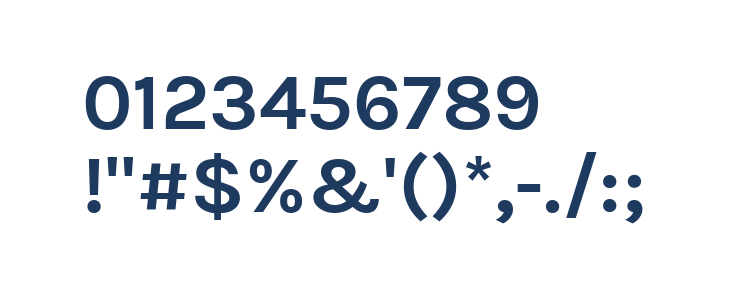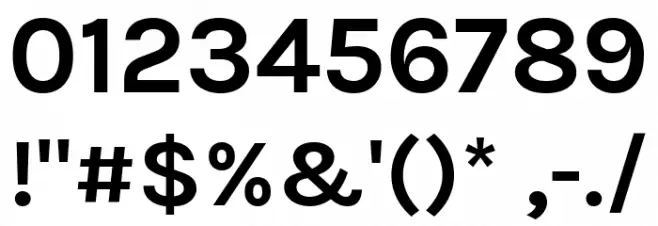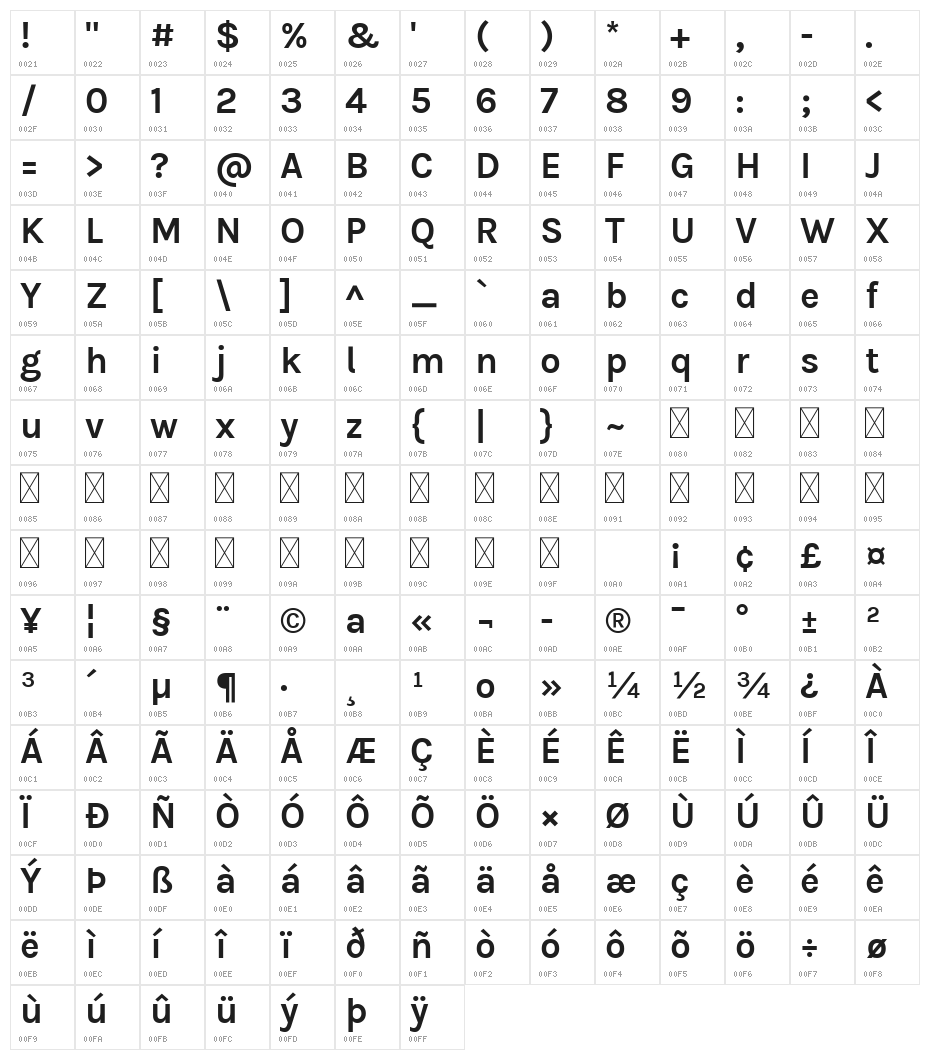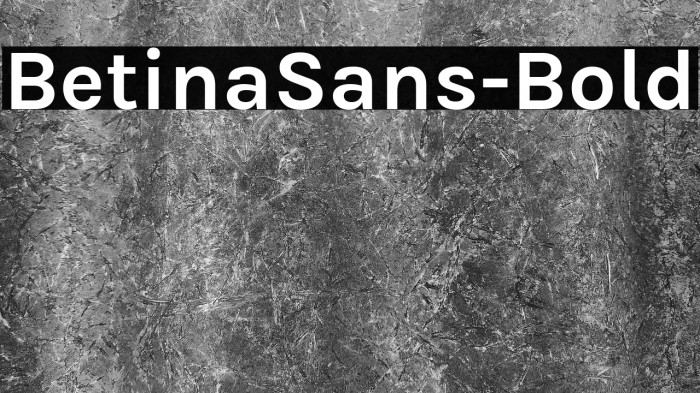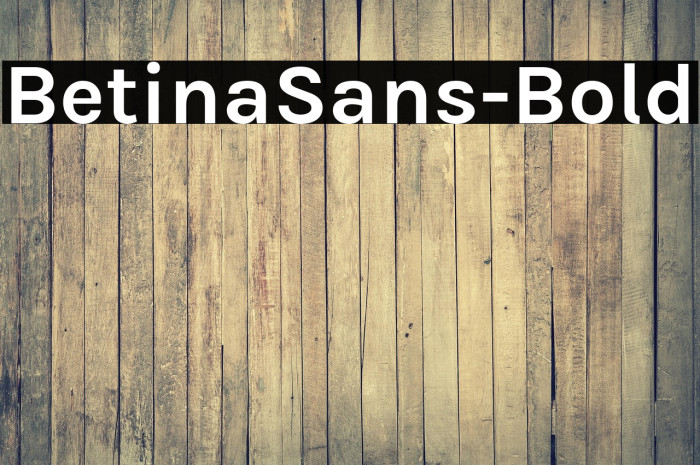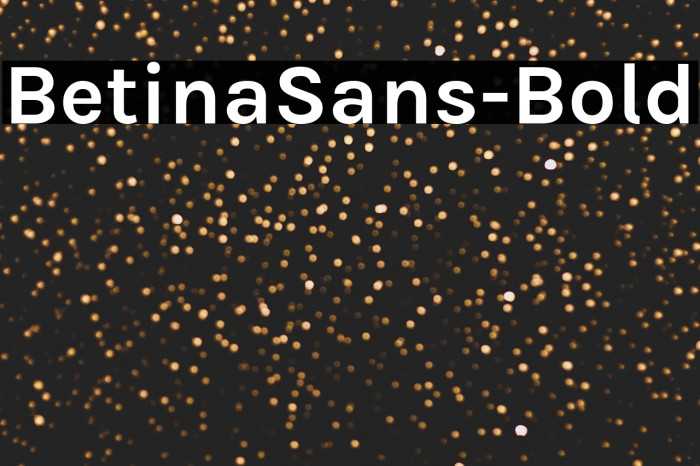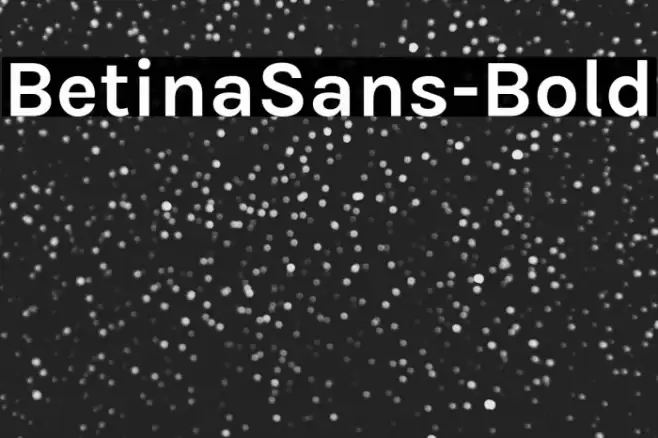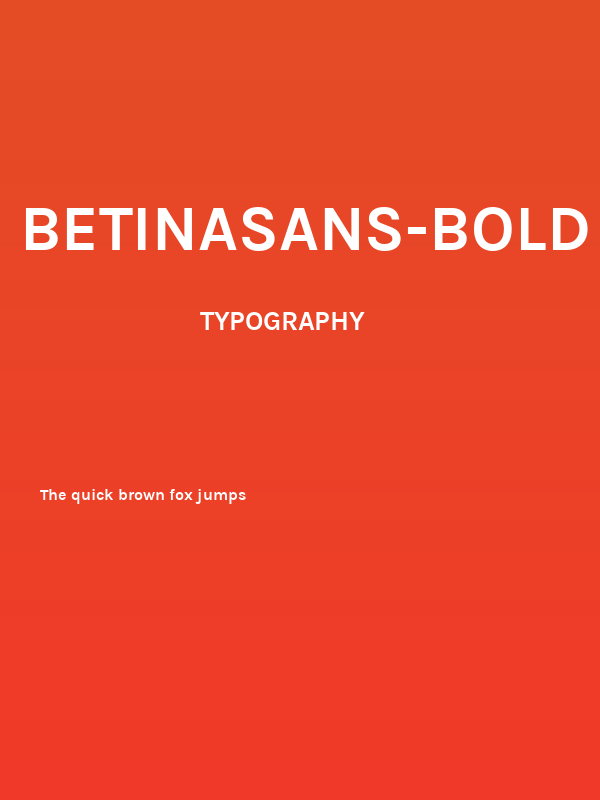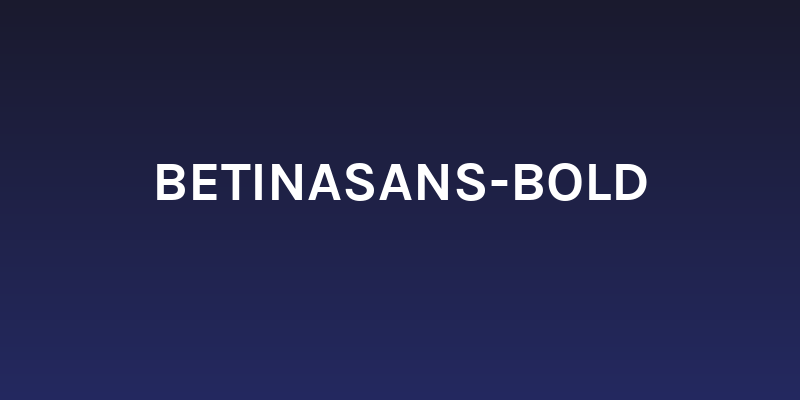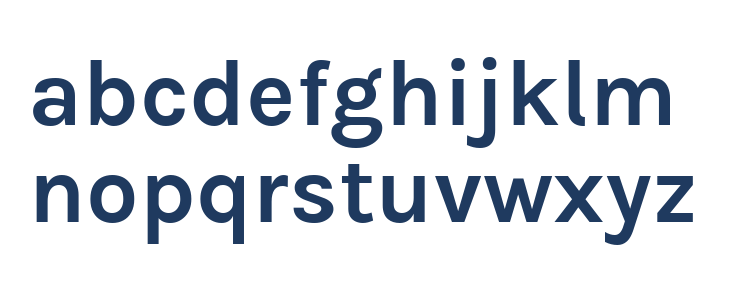
BetinaSans-Bold Font
BetinaSans-Bold Description
This font exhibits a clean and modern sans-serif style with bold weight, making it highly legible and impactful. The characters are well-proportioned, featuring smooth curves and straight lines that create a harmonious appearance. The uppercase letters are uniform in height, while the lowercase letters maintain a consistent baseline, enhancing readability. The numerals are clear and distinct, ensuring easy recognition. Special characters are designed with simplicity and clarity, aligning with the overall aesthetic. This font's boldness and clarity make it suitable for a variety of design applications.
Use CaseHeadlines, Logos, Branding
Proposed ProjectsIdeal for branding, headlines, posters, and digital content where clarity and impact are essential.